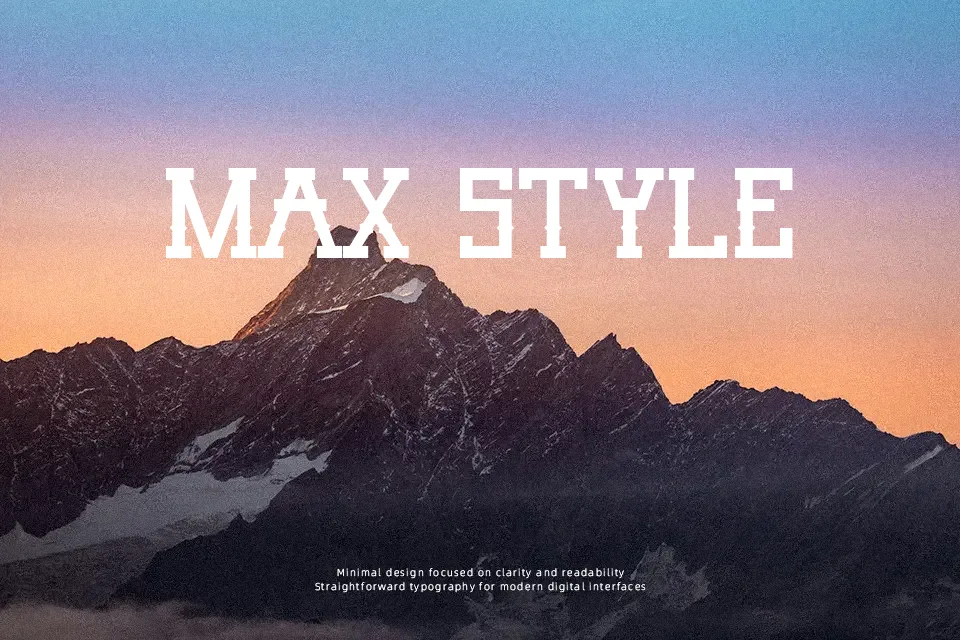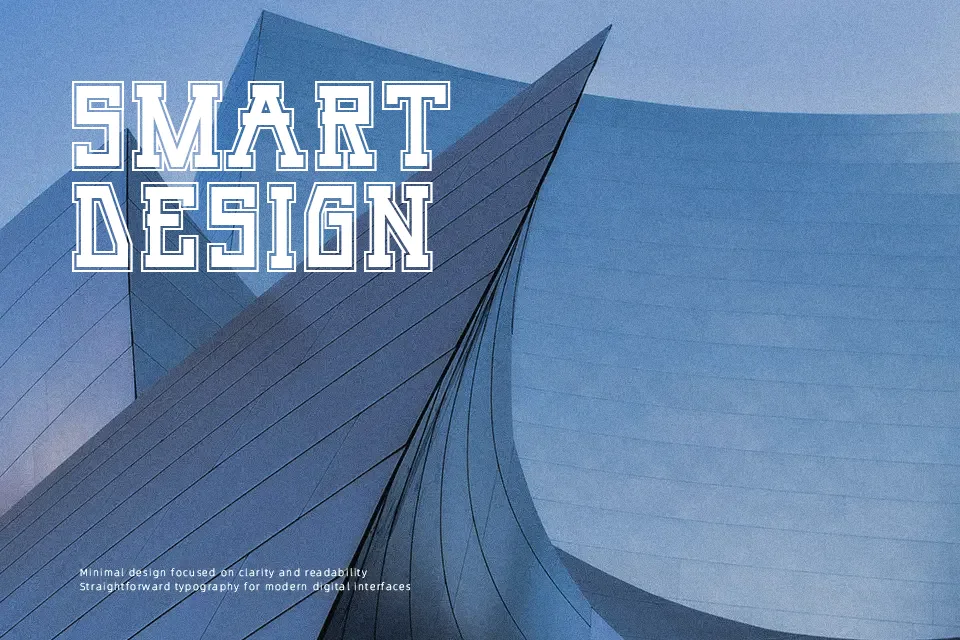
Umar Font
Umar Font establishes an imposing visual presence through broad block serifs, solid uniform stems, and squared proportions. The design maintains tight character spacing that produces a dense typographic texture suited for varsity uniforms, sports merchandise, and stadium banners. Its squared terminals and disciplined baseline alignments sustain crisp legibility at prominent scales. However, the heavy stroke weight causes enclosed counters to fill in at smaller sizes, limiting its effectiveness in continuous text. The typeface performs best when reserved for concise title lines, where the weighty letterforms command attention without overwhelming surrounding layout space.
Best For: athletic team jerseys, collegiate apparel graphics, vintage stadium posters, gym branding headlines
Not Ideal For: long paragraph text, mobile user interfaces, small caption labels, dense editorial layouts
Perfect for headline, packaging, and poster, with a bold and display style.